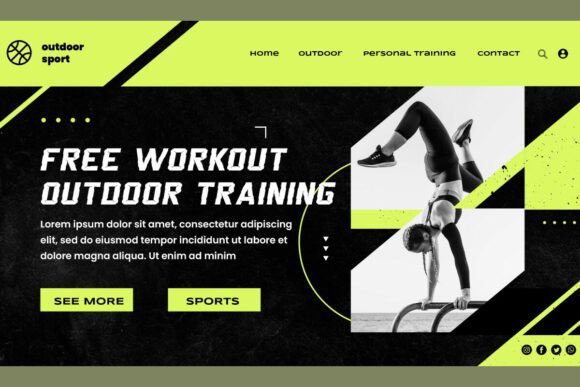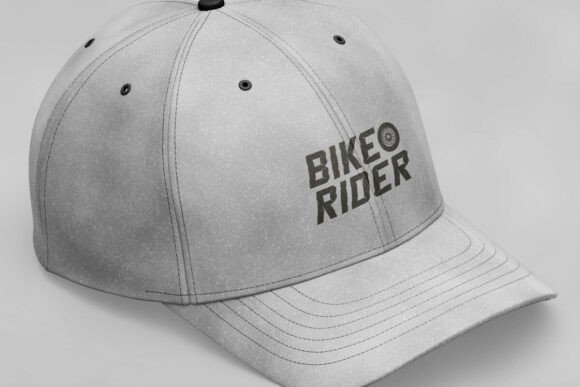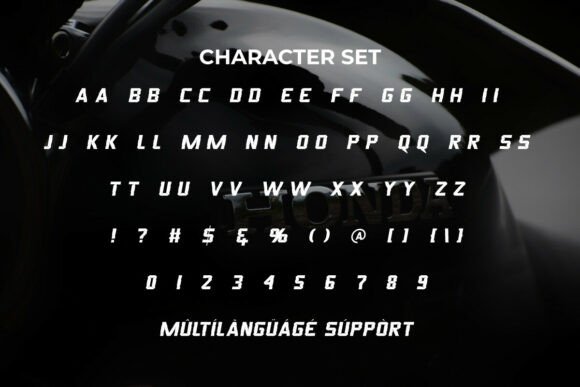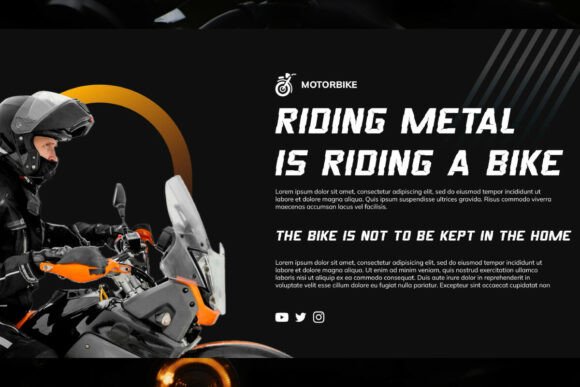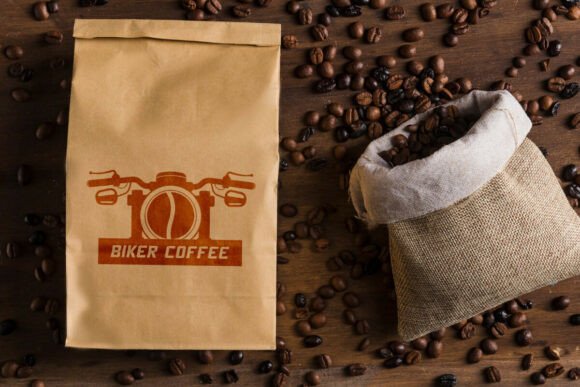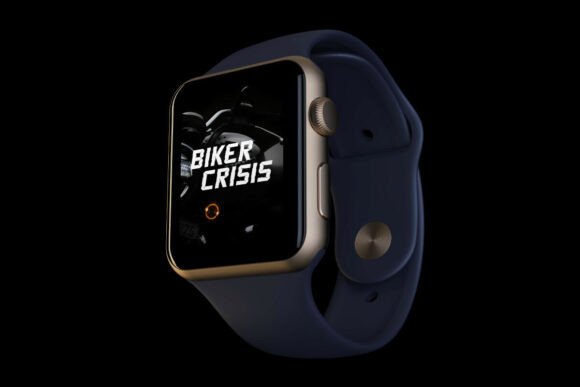
The Biker Crisis Font: A Game-Changer for Designers
I’ll never forget the time I was working on a project for a motorcycle client, and I just couldn’t find the right font to capture the essence of their brand. The design needed to scream speed, power, and adrenaline, but everything I tried seemed to fall flat. That’s when I stumbled upon the Biker Crisis font, and it was like a match made in heaven! 🚀
With its strong angular shapes and bold mechanical precision, Biker Crisis is more than just a font – it’s a statement piece. Its geometric cuts and condensed letterforms evoke a sense of industrial motion, making it perfect for dynamic compositions and modern high-impact designs.
What I Love About Biker Crisis
So, what makes Biker Crisis so special? Here are a few things that I absolutely love:
- ✨ Speed and strength: The font’s bold and angular design makes it perfect for conveying a sense of speed and power.
- ✅ Clear legibility: Even at small sizes or in tight spacing, Biker Crisis remains clear and easy to read.
- 🔥 Industrial edge: The font’s mechanical precision gives it a unique industrial look that’s perfect for motorsport branding and automotive advertising.
- 💻 Versatility: Biker Crisis can be used for a wide range of design projects, from gaming titles to apparel prints.
While Biker Crisis is an amazing font, it’s not without its quirks. Here are a few things to keep in mind:
- 🤔 Limited use in body text: Due to its bold and condensed design, Biker Crisis may not be the best choice for long blocks of body text.
- ⚠️ Kerning issues: As with any font, kerning can be a issue, especially at smaller sizes or in certain combinations of letters.
- Explore the font’s OpenType features, such as glyphs and stylistic alternates, to add more depth to your design.
The story behind Biker Crisis is one of passion and dedication. According to its creators, the font was inspired by the world of motorsports and the need for a bold, high-impact font that could capture the speed and adrenaline of racing. With its unique blend of geometric cuts and mechanical precision, Biker Crisis is the perfect reflection of this inspiration.
| What is Biker Crisis font best used for? | Biker Crisis is perfect for motorsport branding, gaming titles, automotive advertising, and apparel prints. |
| Does Biker Crisis support OpenType features? | Yes, Biker Crisis supports OpenType features, including glyphs and stylistic alternates. |
In conclusion, Biker Crisis is a game-changing font that’s perfect for designers looking to add a bold, industrial edge to their work. With its unique blend of geometric cuts and mechanical precision, it’s sure to make a statement in any design project.